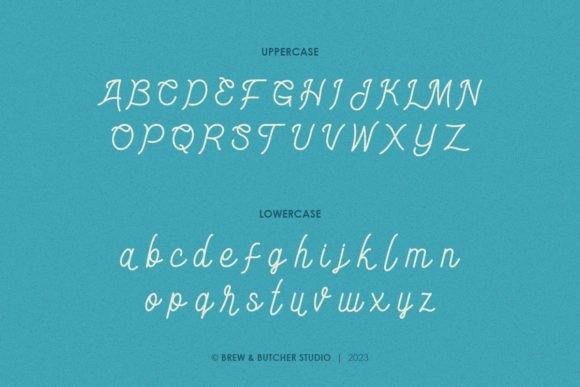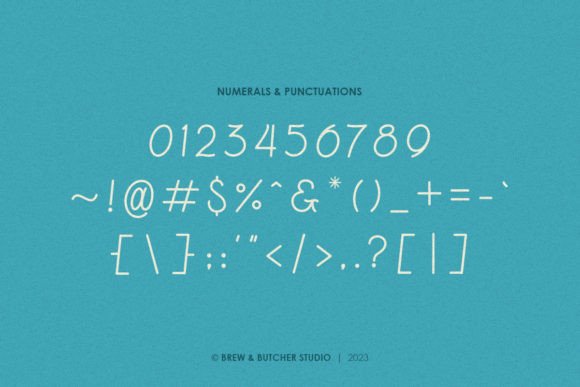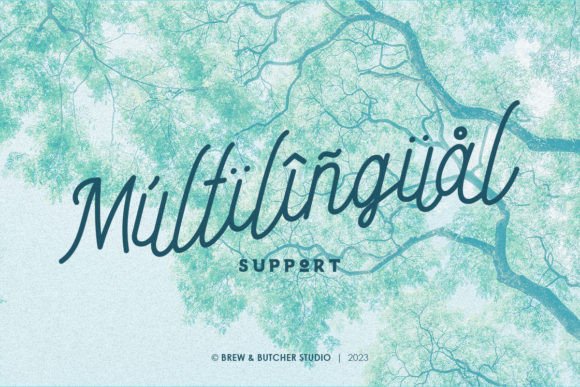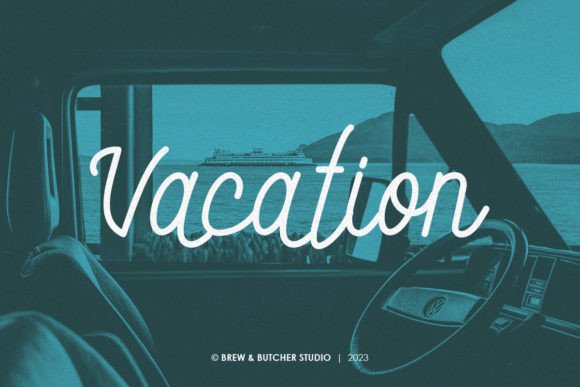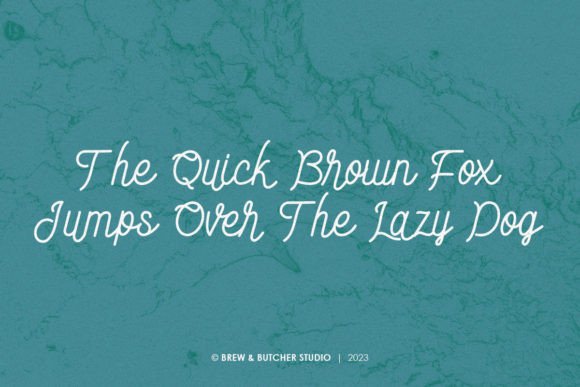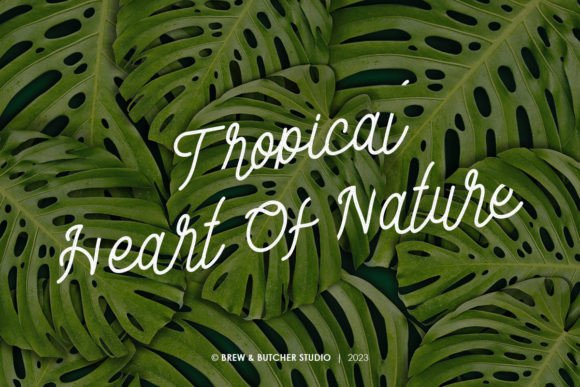
Introduction to Endago Font
Endago is a monoline font style, inspired by a line that gives unity and connection in every project.
This font is best used for headers or headlines, posters, flyers, banners, landingpages, portfolios, name write, album covers and more .
Key Features of Endago Font